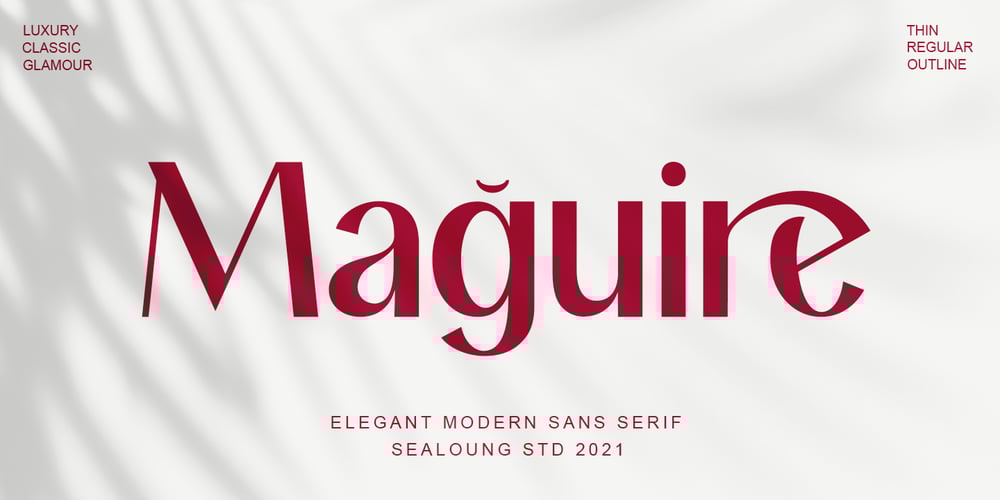
Maguire Font Family was designed by Saiful Anwar and published by Sealoung. Maguire contains 3 styles and family package options. Introducing Maguire Elegant TypefaceMaguire is a Minimalist Modern Elegant font with beautiful ligatures, tons of special alternative glyphs and multilingual support. It’s a very versatile font that works great in large and small sizes. Maguire is perfect for branding projects, Logo design, Clothing Branding, product packaging, magazine headers, or simply as a stylish text overlay to any background image.Features:3 Weights fontUppercaseLowercaseStylistic Alternates & LigaturesNumerals & PunctuationMultiple Languages SupportedHOW TO ACCESS ALTERNATE CHARACTERSOpen glyphs panel:In Adobe Photoshop go to Window – glyphsIn Adobe Illustrator go to Type – glyphsThanks for checking out our font! I really hope you enjoy using it!If you have any questions I’d be more than happy to answer them, just send me a message!